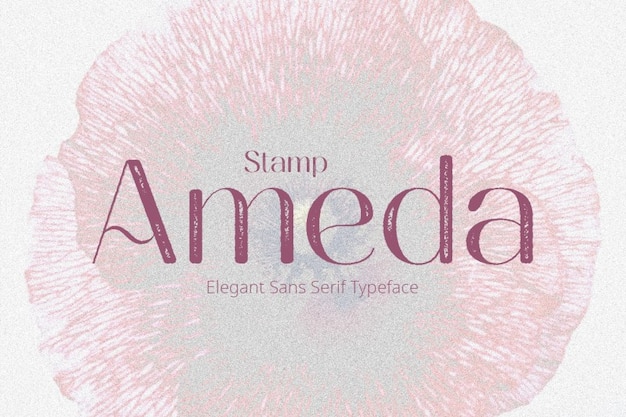
Ameda
Ameda Font
"Ameda Rough Regular" font embodies the subtle beauty of dust particles, its textured simplicity evoking a sense of raw elegance. Perfect for designs seeking to convey understated sophistication amidst the dust of time. Ideal for projects aiming to blend simplicity with rustic charm, infusing them with a unique and captivating aesthetic.